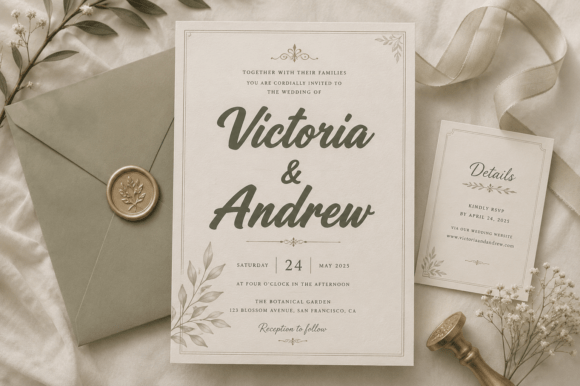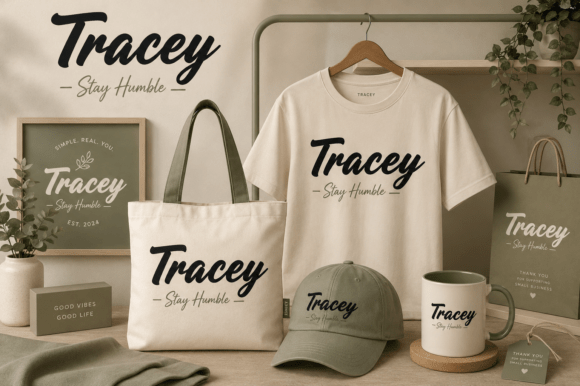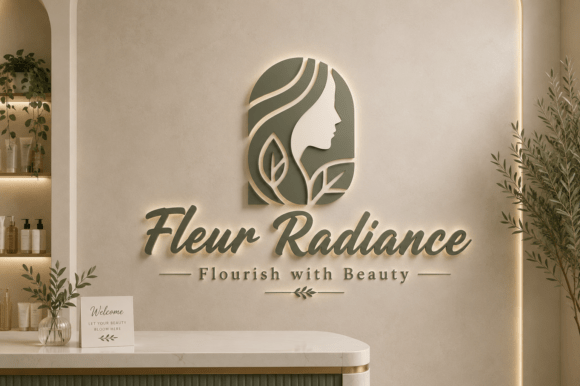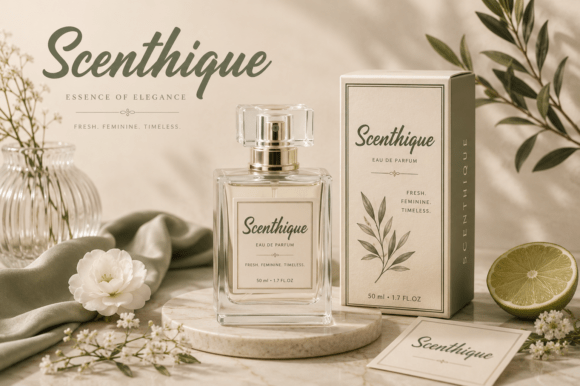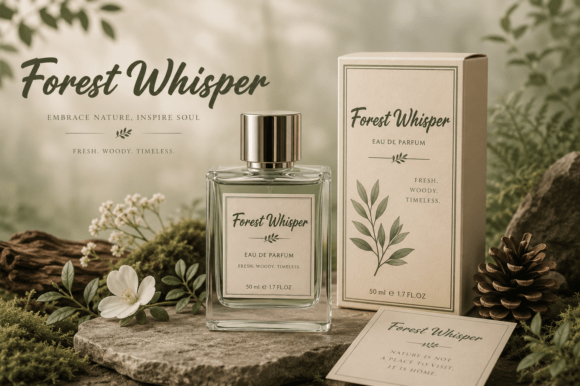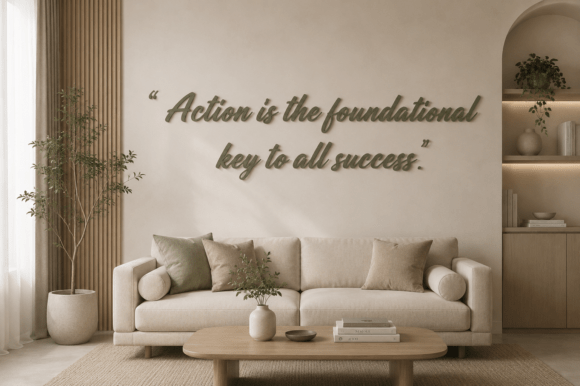
The Perfect Blend of Style and Sophistication
Have you ever been inspired by the art of hand-lettering, and wished you could infuse that same organic charm into your designs? For designers seeking a unique and elegant touch, the search is over. Introducing the Bellavique Font, a contemporary script font that masterfully combines powerful strokes, delicate curves, and assertive handwriting flow into a single, breathtaking typeface.
Bellavique Font is the perfect solution for designers looking to add a touch of luxury and sophistication to their projects. With its robust flowing lines and polished brush texture, this font is ideal for a wide range of design applications, from luxury branding and beauty logos to wedding invitations and fashion editorials. Whether you’re a seasoned designer or just starting out, the Bellavique Font is a valuable addition to any toolkit, offering endless possibilities for creative expression and visual impact.
Bellavique Font Key Features
- Unique Characteristics: Elegant script, cursive font with high-end aesthetic; ideal for formal invitations, wedding stationery, and luxury branding
- Font Styles: Regular, Italic, Bold, Bold Italic
Bellavique Font Review
I recently had the chance to work with the Bellavique Font, and I must say it’s a solid addition to any designer’s toolkit. ✨ One of the things that stands out about this font is its elegant and sophisticated aesthetic. It’s perfect for projects that require a touch of luxury and refinement.
Another advantage of Bellavique is its versatility. It can be used for a wide range of applications, from corporate branding to editorial design. The font is highly legible, even at small sizes, making it a great choice for body text or captions.
While Bellavique is a great font, it does have a few limitations. ⚠️ The font family is relatively small, with only a few weights and styles available. This may limit its use in certain situations where a more extensive font family is needed.
Overall, I’m impressed with the Bellavique Font. It’s a well-designed font that is perfect for projects that require a touch of elegance and sophistication. While it may not be suitable for every situation, it’s definitely worth considering for projects where a high-end aesthetic is required.
- Elegant and sophisticated aesthetic ✨
- Highly legible, even at small sizes
- Versatile and suitable for a wide range of applications
- Limited font family, with only a few weights and styles available ⚠️
Bellavique Font Practical Application Guide
Getting the Most Out of Bellavique Font
To get the most out of Bellavique Font, use it for:
- Creative headings and titles.
- Emphasizing important text.
- Adding a touch of elegance to your designs.
Bellavique Font is commonly used for:
- Graphic design and digital art.
Alternatives to Bellavique Font
Lato is a modern sans-serif font that is highly legible and versatile. It’s perfect for use in digital interfaces, web design, and print materials. Lato is a great alternative to Bellavique Font when you need a clean and minimalistic look.
Lato and Bellavique Font share a similar elegance, but Lato has a more modern feel and is more suitable for digital applications.
Montserrat is a geometric sans-serif font that is inspired by the urban landscape of Montserrat, a mountain range in Argentina. It’s a great choice for use in headings and titles, and is perfect for creating a modern and edgy look. Montserrat is a great alternative to Bellavique Font when you need a bold and striking font.
Montserrat has a more geometric feel than Bellavique Font, but both fonts share a similar level of elegance and sophistication.
Open Sans is a clean and modern sans-serif font that is highly legible and versatile. It’s a great choice for use in digital interfaces, web design, and print materials. Open Sans is a great alternative to Bellavique Font when you need a neutral and approachable font.
Open Sans has a more neutral feel than Bellavique Font, but both fonts share a similar level of elegance and sophistication.